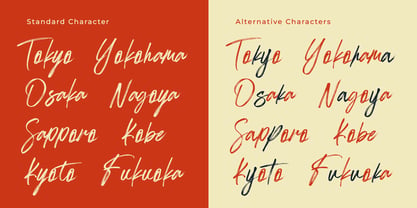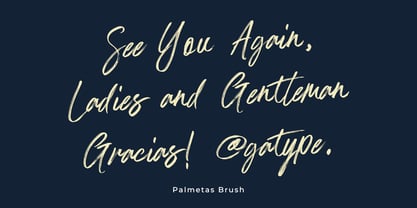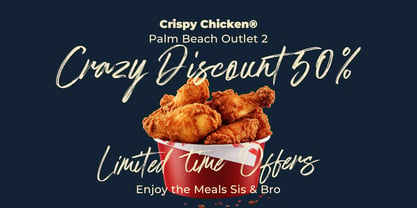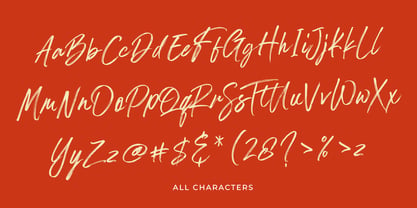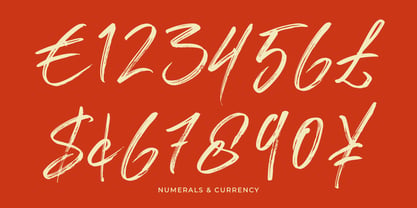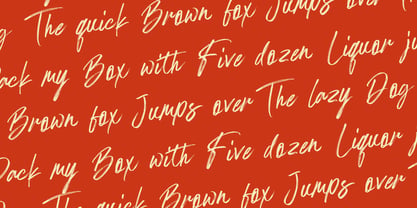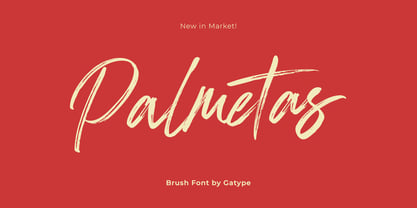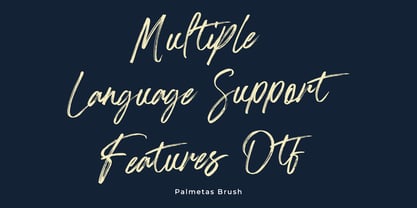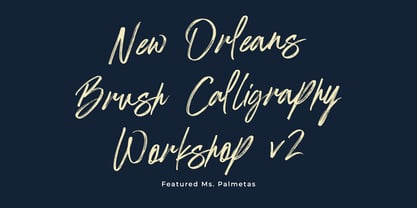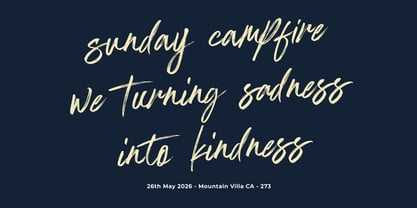
Palmetas
by Gatype
The Palmetas Font Family was designed by khaidir and published by Gatype. Palmetas contains 1 styles. More about this family
Palmetas Brush – Playful Brush Stroke Font Palmetas Brush is a playful brush font perfect for modern, trendy designs. Whether you're working on social media content, fun branding, product packaging, apparel, or event posters — this font adds an energetic and handcrafted feel to your layout. With expressive brush strokes and a casual vibe, Palmetas makes your design stand out while keeping things fresh and stylish. Thank you for checking out Palmetas!
Designers: khaidir
Foundry: Gatype